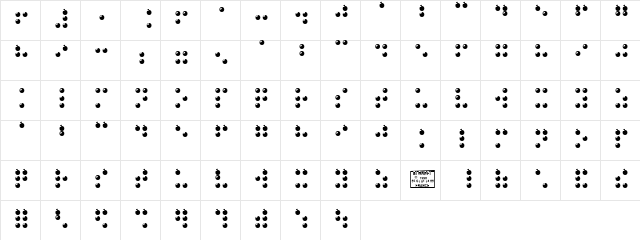
Braille 3D Regular
Design Context for Braille 3D Typeface
Braille 3D offers clean, dependable letterforms without strong stylistic allegiance, making it a practical choice for designers who need flexibility.